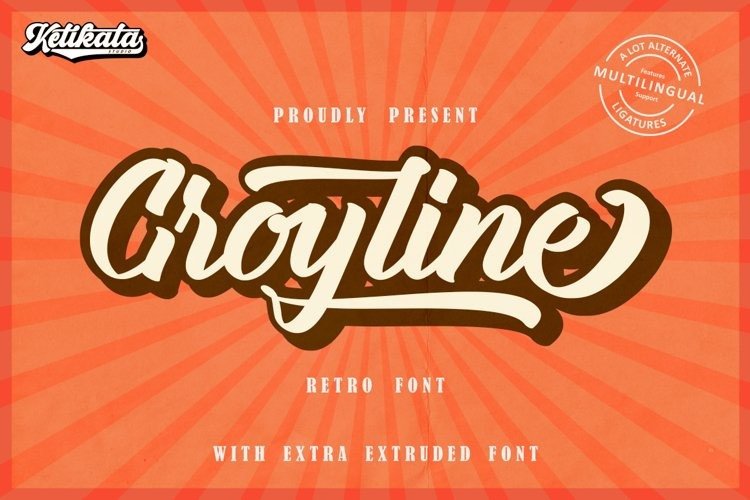
Groyline Font
Groyline Script Font is Handwritten marker font that looks neat and nice to look at, so it will be suitable to use for your design projects. It’s designed and shared by Ketikata Studio. Carefully crafted with hand lettering. that contains many stylistic alternate and swashes that will help you to create your own customized design.
this font has unique and perfect for branding (Logotype) and other design needs, like for merchandise, packaging, business card and many other project.
with start and ending swash, and middle swash for some letters, this is very easy to use, just rely on your creativity!
Groyline also comes with extra Extruded Font version. So you won’t need extra effort for create an extrude effect for this font. This mean it will saves your time.